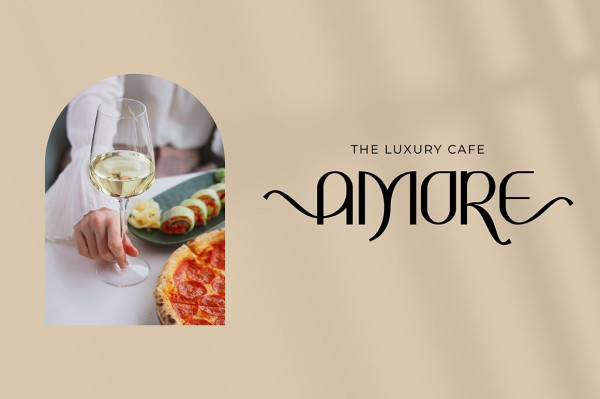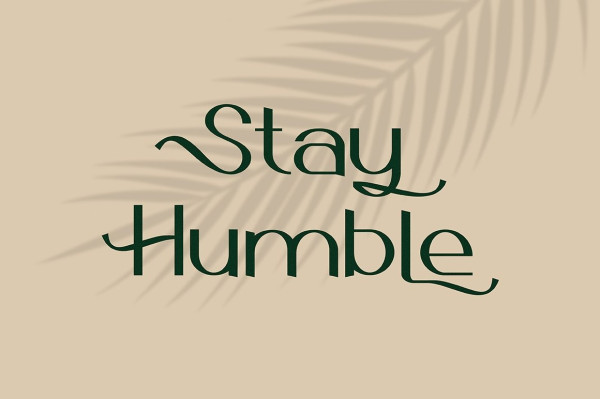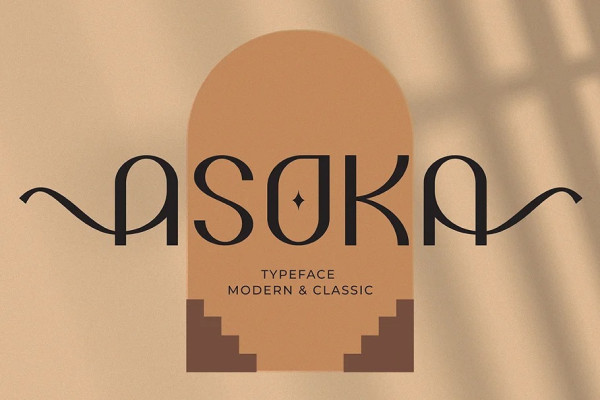
Asoka Font
ASOKA Font is a beauty Display look. This font is suitable for invitation cards, decorations, clothing products, greeting cards and more. This font also has uppercase, lowercase, numbers, punctuation and multilingual. and there are several alternative ligatures and styles.